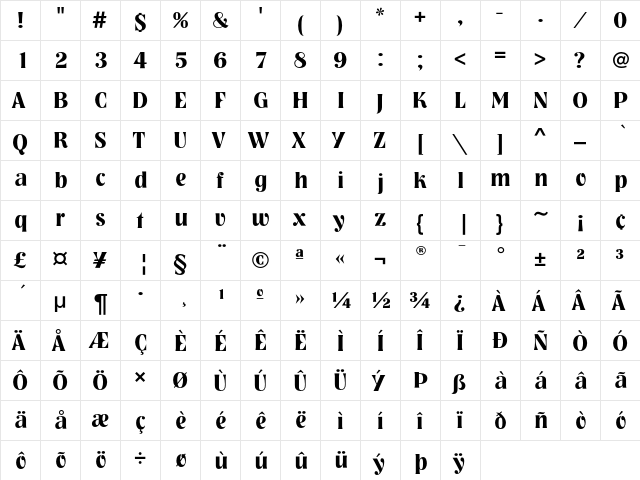
NashvilleEF DemiBold Font Preview
NashvilleEF DemiBold
NashvilleEF DemiBold Font Details
| Style | DemiBold |
Design Context for NashvilleEF Typeface
NashvilleEF takes a measured approach to typography — its balanced proportions and neutral character make it a reliable workhorse for both digital and print work. Its bold stroke weight gives it real presence on the page.